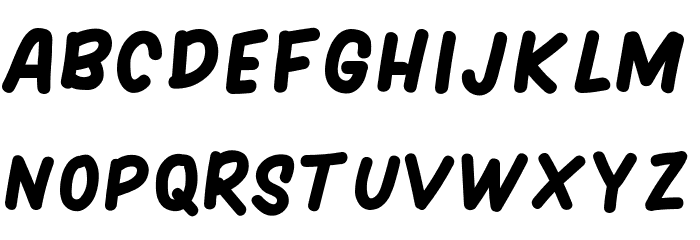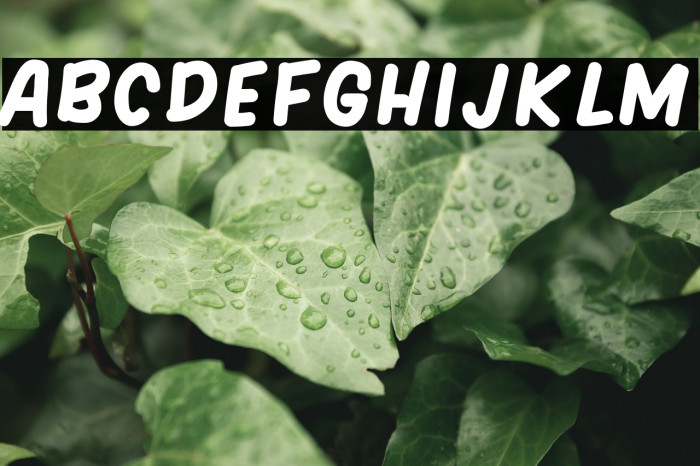
HARGENA Font
This font features a playful and dynamic style with a handwritten appearance. The uppercase letters are bold and slightly slanted, giving a sense of movement and energy. The lowercase letters maintain the same lively character, with rounded edges and consistent stroke widths. The numerals are distinct and clear, with a more traditional serif style that contrasts with the letters. Special characters are well-integrated, maintaining the overall aesthetic. This font is versatile, suitable for projects that require a personal and approachable touch.
A playful, handwritten-style font with bold, slanted uppercase letters and rounded lowercase characters.
- Proposed Projects: Ideal for greeting cards, playful branding, children's books, and informal invitations.
- Overall Style: Playful